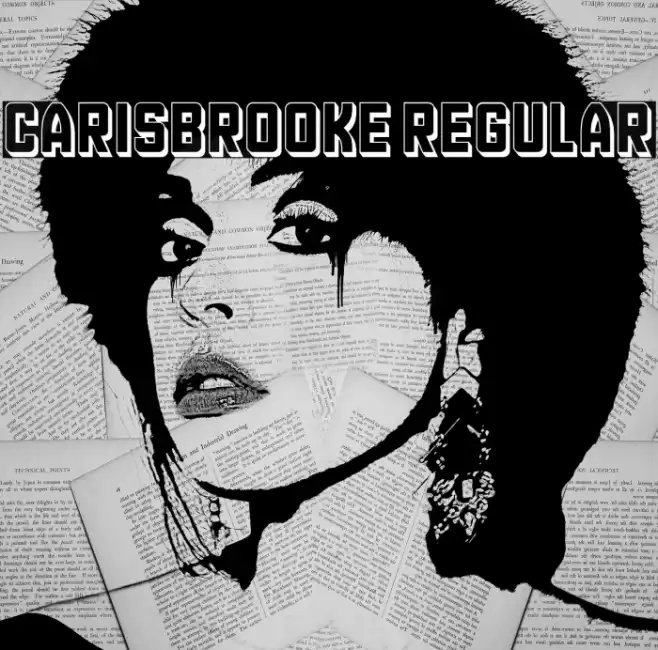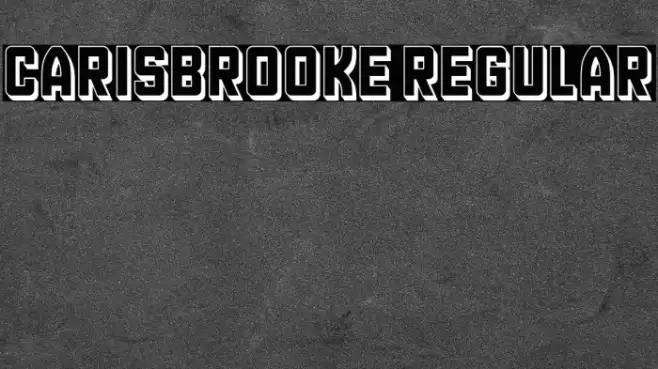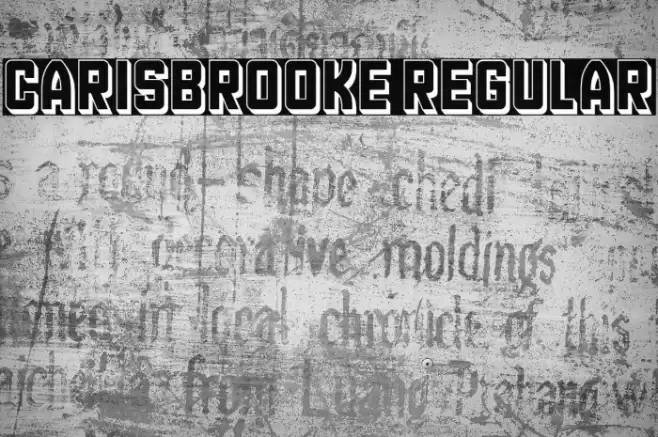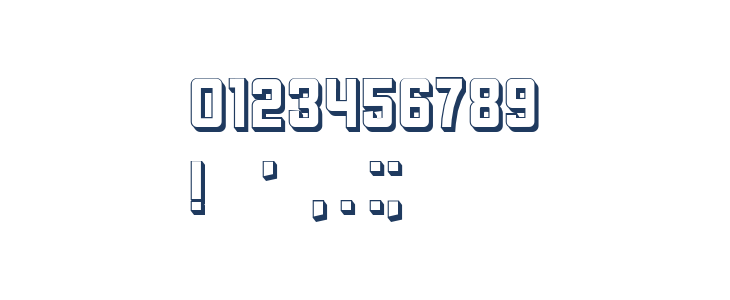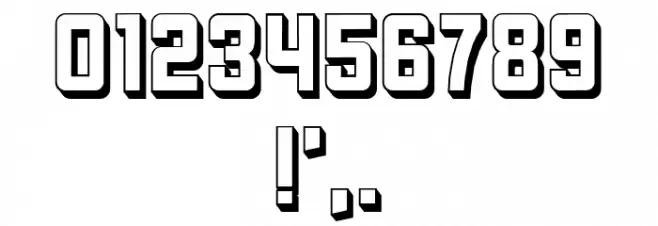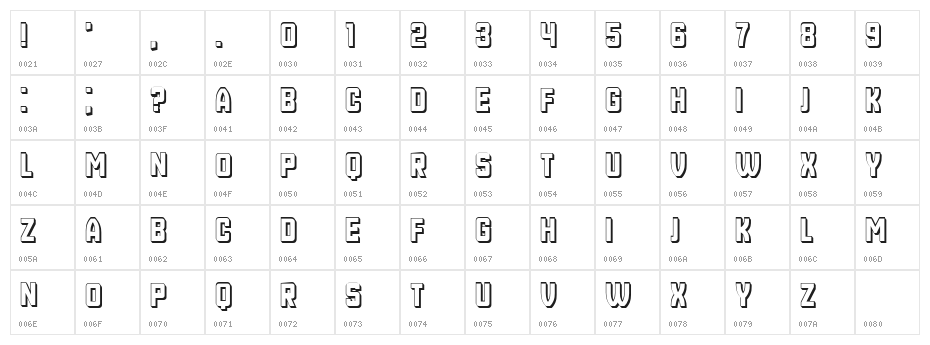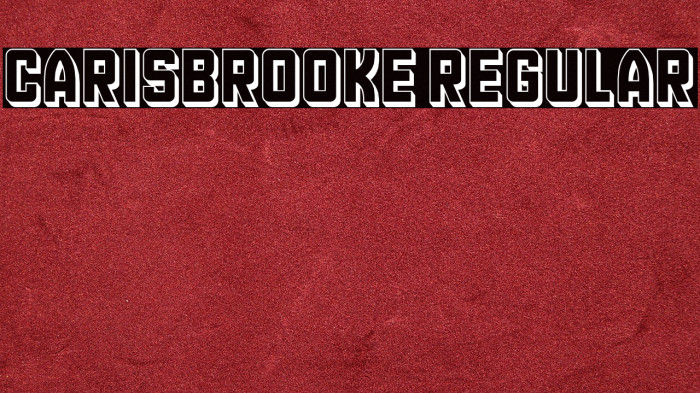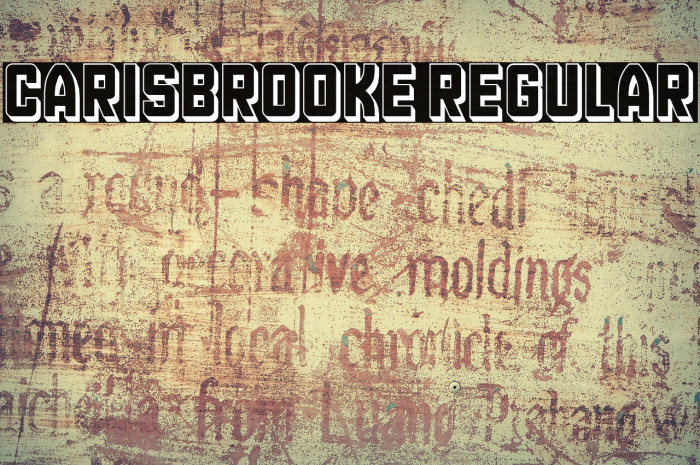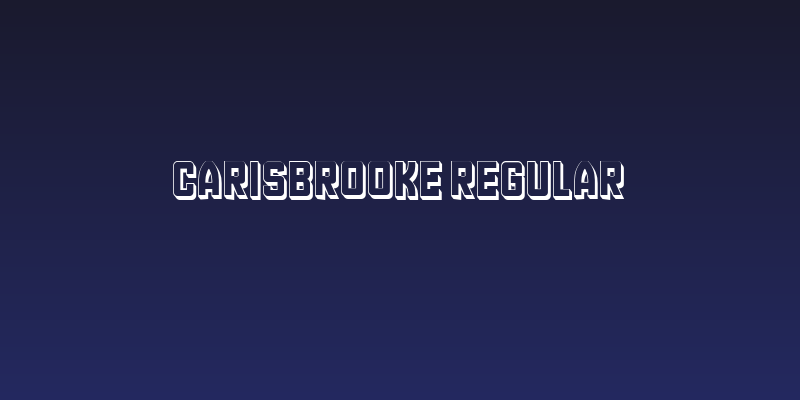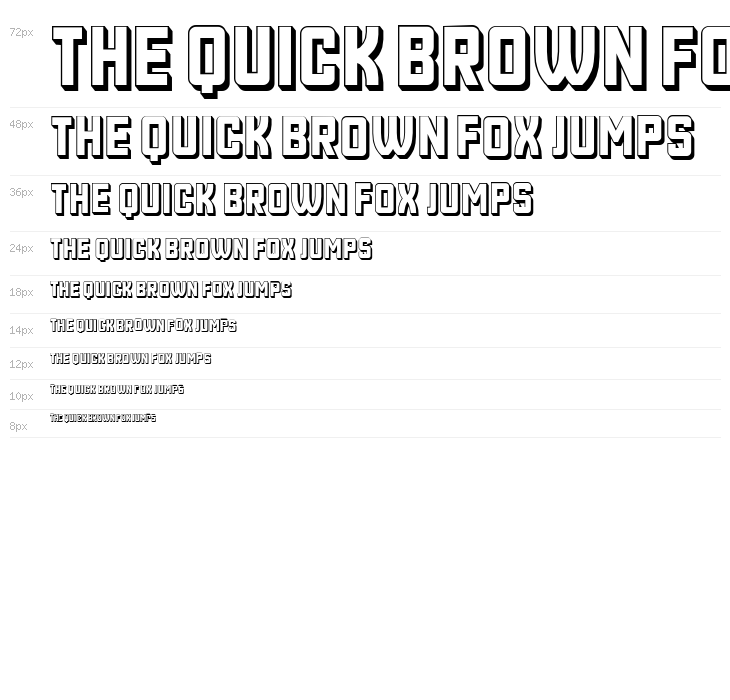
Carisbrooke Regular Font
Carisbrooke Regular Description
This font features a bold, three-dimensional appearance with a strong, shadowed outline that gives each character a striking and impactful look. The uppercase letters are uniform in height, with a geometric structure that emphasizes clarity and readability. The numbers and special characters maintain the same bold style, ensuring consistency across all elements. The font's design is reminiscent of vintage signage, making it ideal for projects that require a touch of retro flair. Its distinct shadow effect adds depth, making it stand out in any design context.
A bold, three-dimensional font with a vintage, shadowed style from Regular fonts.
- Proposed Projects: Ideal for posters, headlines, logos, and any design needing a retro or impactful look.
- Overall Style: Vintage